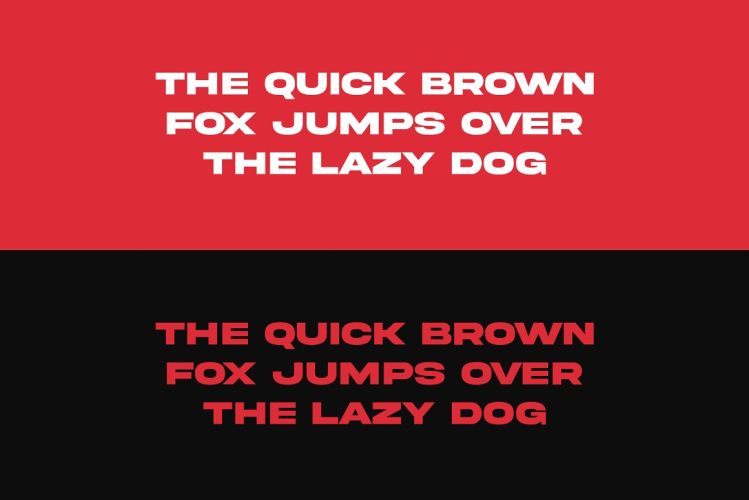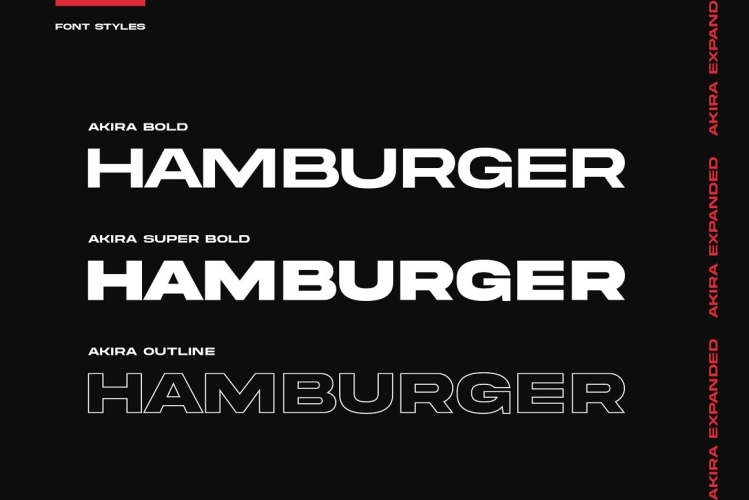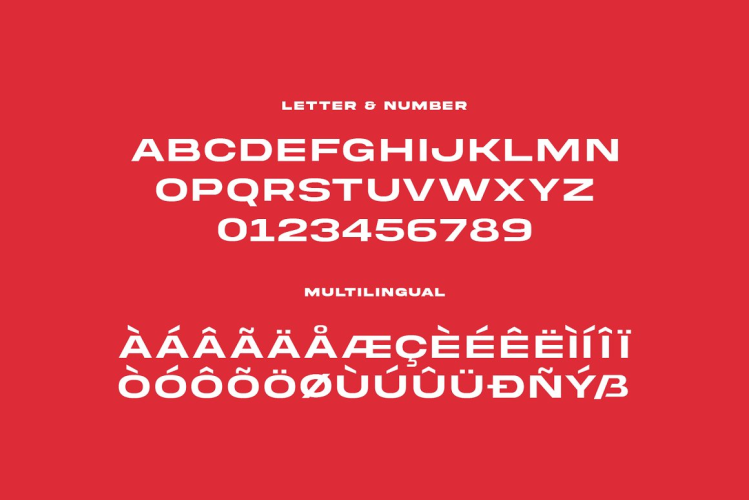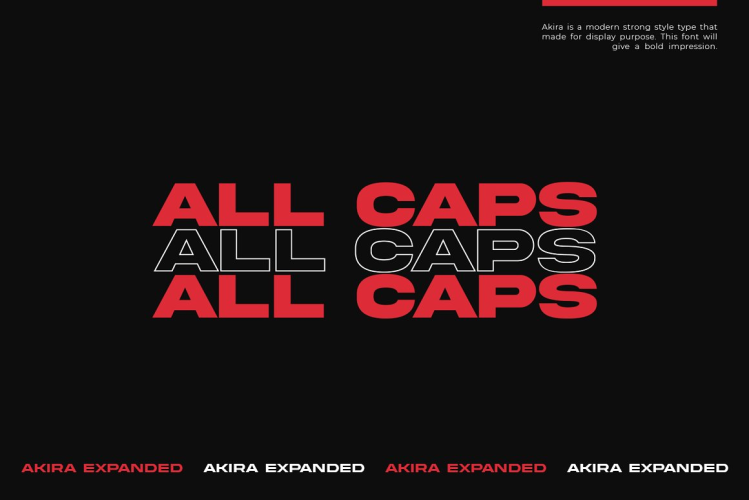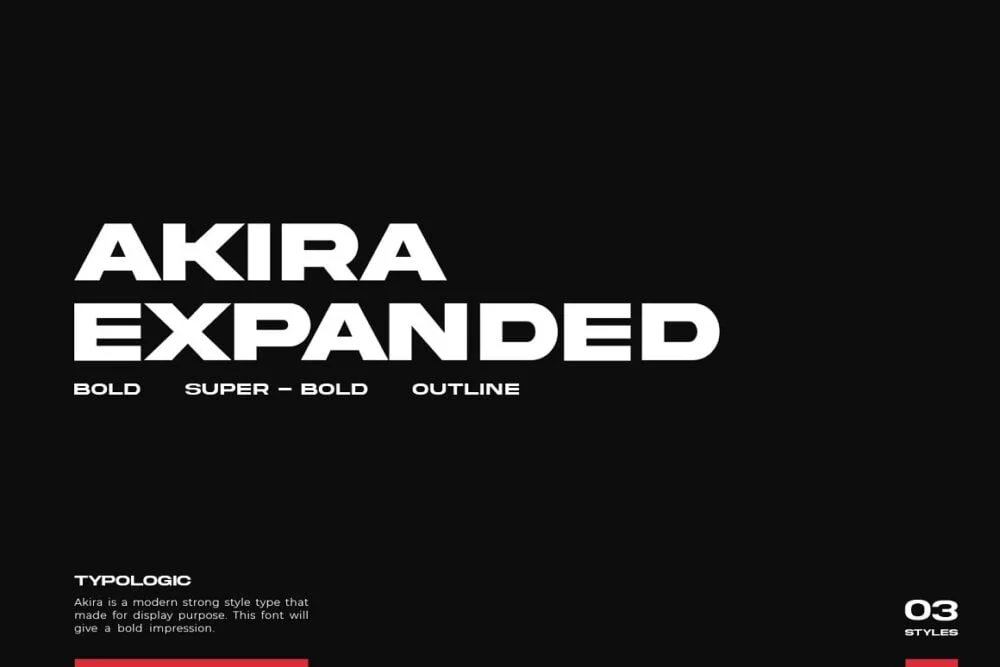
Akira Expanded Font
Akira Expanded Font Made for text display purposes, Akira expanded brings a modern and strong impression to your design. With a bold style, make this font suitable as the main text/header text on a website or layout design. Akira expanded also includes alternative glyphs that make it easy for you to make customizations.
Where Akira Expanded Font works best
Akira Expanded Font is built for size: event posters, hero headlines and billboard-style layouts.
High contrast display type like Akira Expanded Font reads instantly in thumbnails and motion graphics.
What is Akira Expanded Font good for?